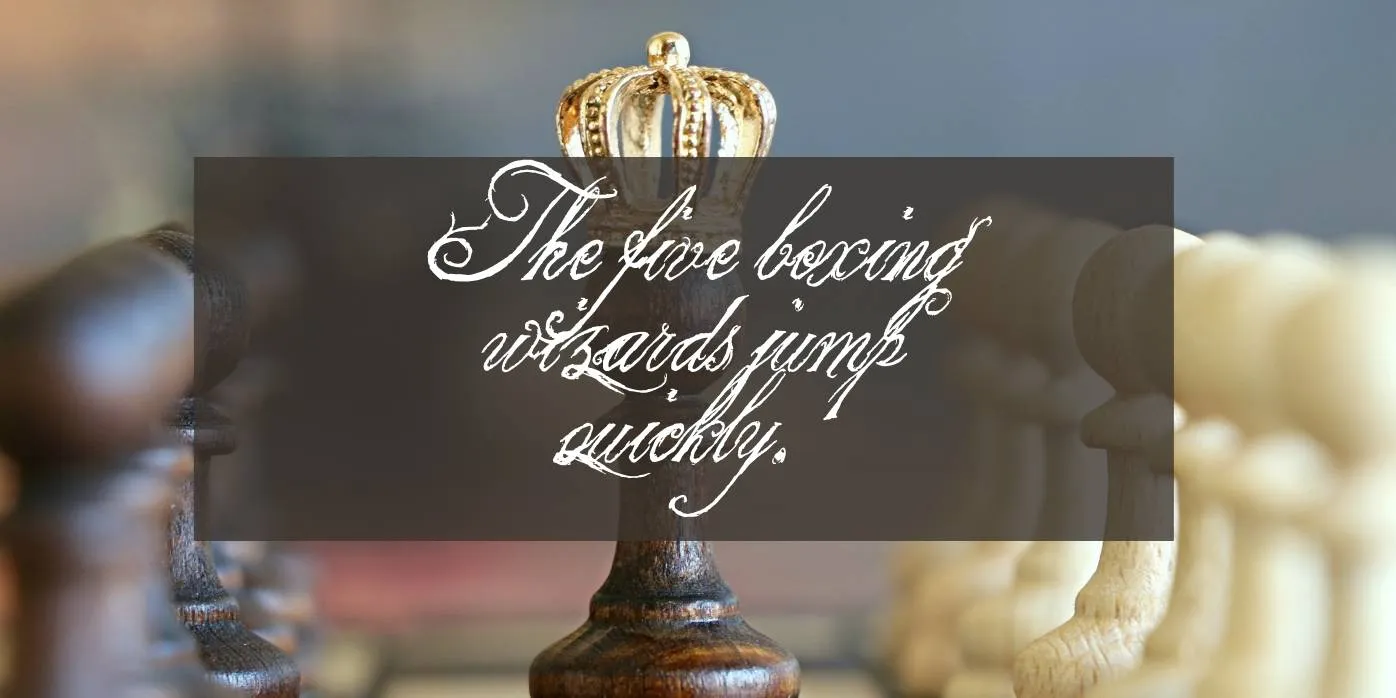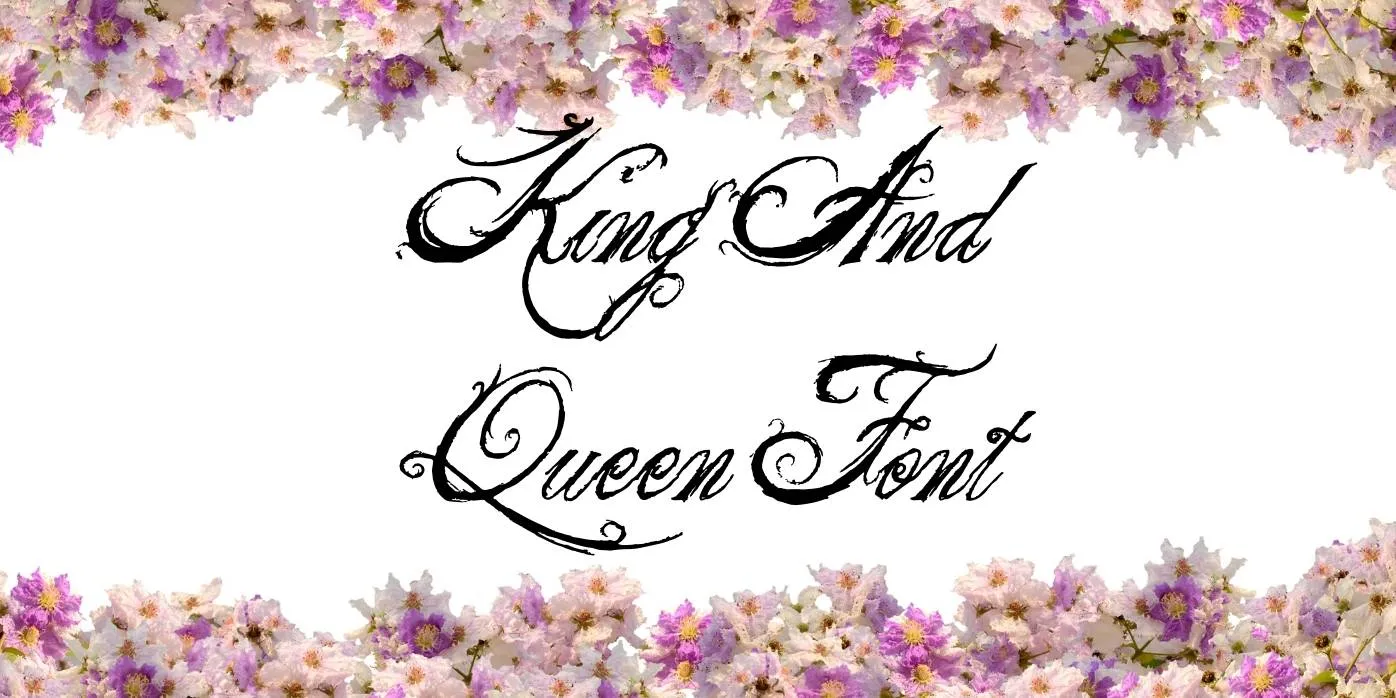
King And Queen Font
King And Queen font was designed by a very intelligent designer Bran. This attractive font is popular because of its keen features. This cute font has a unique design, making this font the king of all fonts. Many graphics designers wish to put this font in their collections.
This typeface has a full set of characters that are very useful for your designs attractive designs. This font is a typical “Western” Calligraphy typeface that can perfectly be best for wedding invitations, greeting cards, posters, magazines, and others. Its unique styles and keen features make use of your designs attractive designs. This awesome font is very easy to use, you can always adjust this font according to your needs.
This cute font is the king of all fonts. This staggering typeface is a very useful font that can be perfect for many different designs has a full set of Glyphs that are very amazing. This font is a custom font that you can download from our website. For other various designs, you can use its alternative font Britany Font.